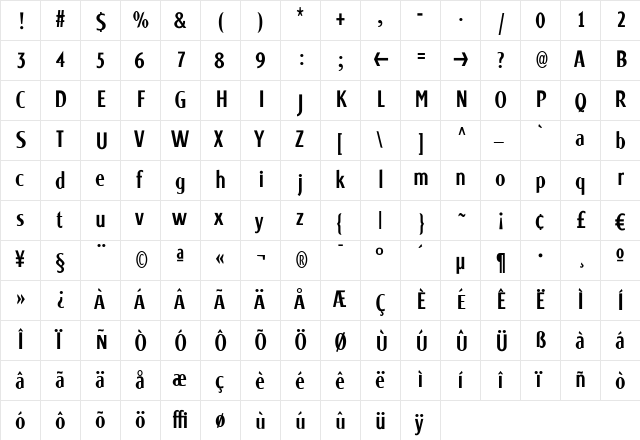
Monem Normal Condensed Regular
Design Context for Monem Normal Condensed Typeface
Monem Normal Condensed is a composed and adaptable typeface that performs quietly and consistently across a wide range of design contexts. The condensed width makes it efficient for tight spaces without sacrificing legibility.
Pro Tip: Use Monem Normal Condensed in both headline and body roles to test its range before committing to a single application.